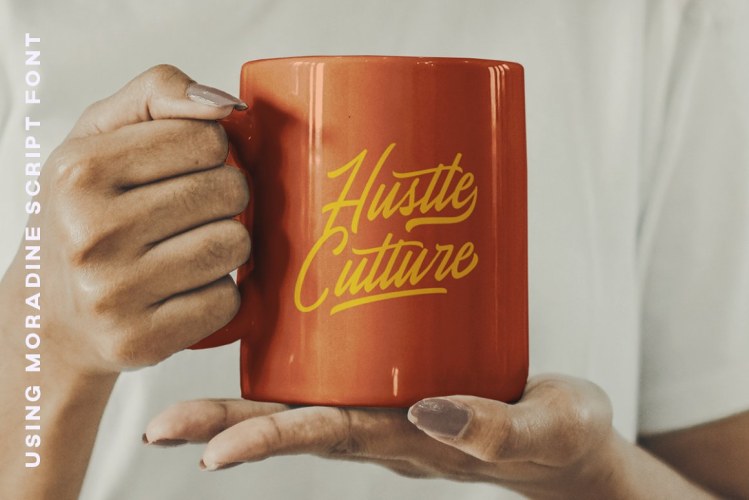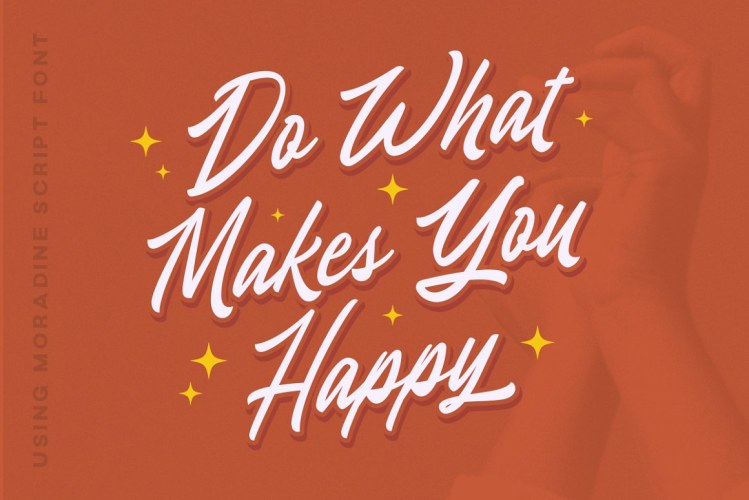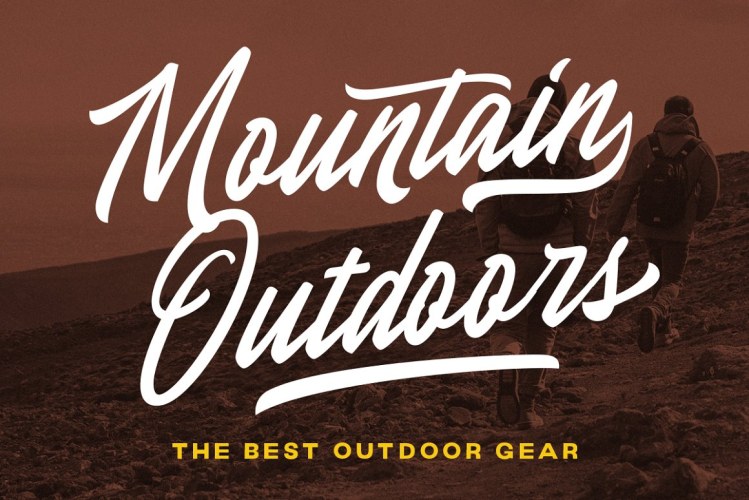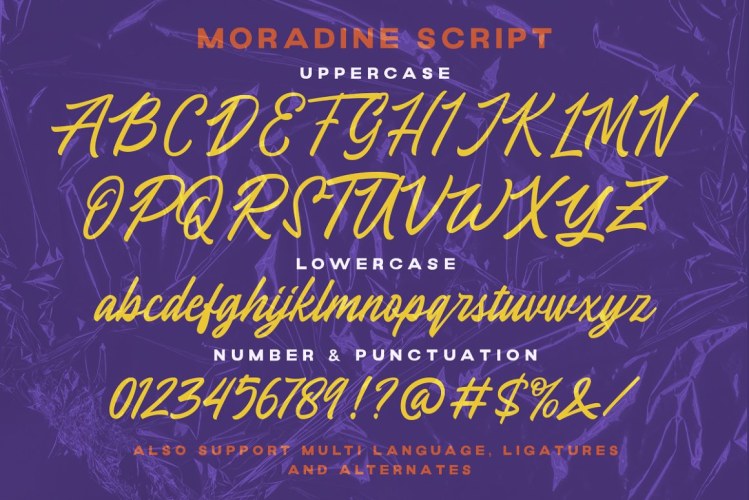
Moradine – Script Font
Introducing Moradine, a script font perfect for designers looking for a modern and casual style. With its clean lines and flowing curves, this font is ideal for adding an interesting touch to your designs,especially in logo, and the other various formal forms such as invitations, labels, logos, magazines, books, greeting / wedding cards, packaging, fashion, make up, stationery, novels, labels or any type of advertising purpose.
Uppercase & lowercase
Numbers and punctuation
Alternates & Ligatures
Multilingual
Moradine – Script Font is a Script And Handwritten font that brings a professional and versatile look to your projects. Introducing Moradine, a script font perfect for designers looking for a modern and casual style.